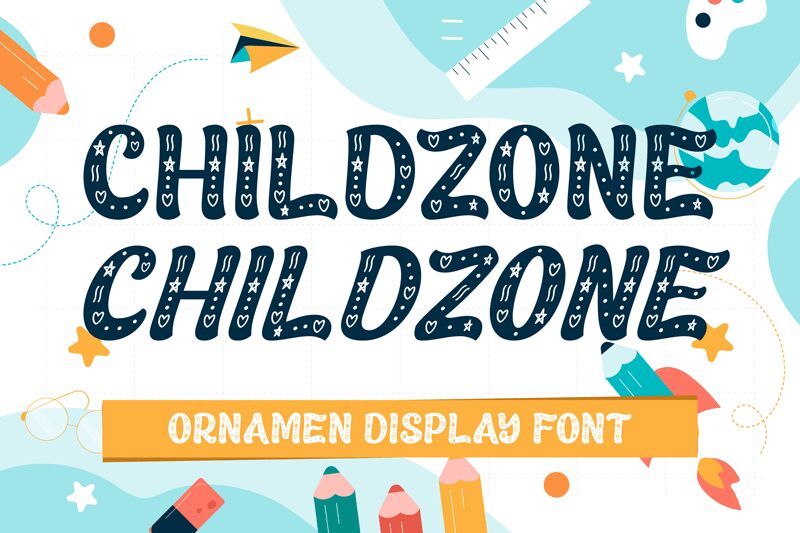
Childzone, a creation by Ahwe Project, stands out as a bold display font with a distinctive decorative style. Its playful contours and whimsical details evoke a sense of childlike wonder, making it an excellent choice for projects that aim to capture the essence of youth and creativity. The font's chunky characters are adorned with charming elements such as stars and hearts, enhancing its aesthetic appeal while maintaining readability.
The bold weight of Childzone ensures high-impact visibility across various applications, from vibrant children's book titles to eye-catching branding for family-oriented products. This font not only adds a touch of fun to visual compositions but also retains a professional edge that makes it versatile in both printed materials and digital media. With Childzone, designers have at their fingertips an imaginative typeface that is sure to infuse any project with personality and flair.